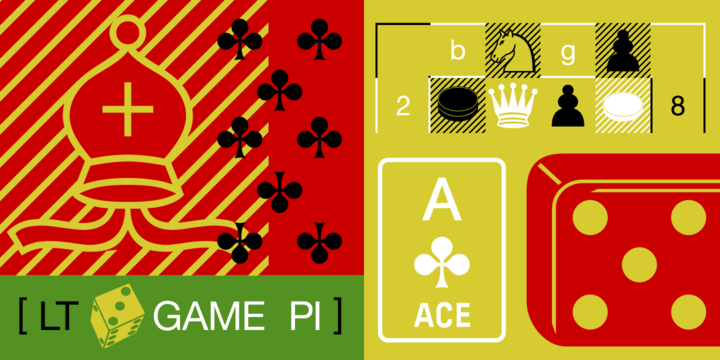
These four sets of game symbols include chess, dice, dominoes, and two styles of playing cards—French (plain) and English (includes the card name).
Linotype Game Pi Chess Draughts
Linotype Game Pi Dice Dominoes
Linotype Game Pi English Cards
Linotype Game Pi French Cards